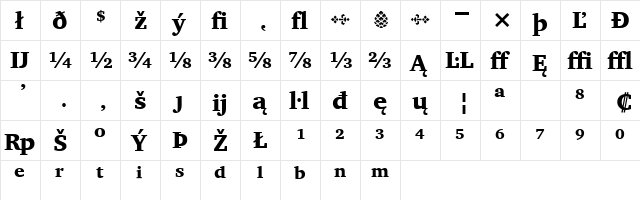
Charter Ext BT Black Extension
Design Context for Charter Ext BT Typeface
Charter Ext BT takes a measured approach to typography — its balanced proportions and neutral character make it a reliable workhorse for both digital and print work.